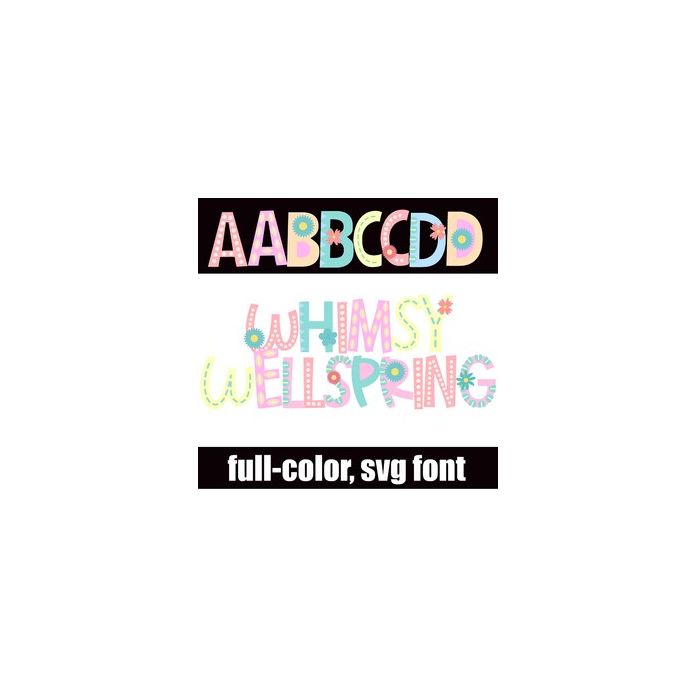
This full-color font features whimsical lettering in pastel colors with cute, pastel flowers. There is an alt case w/ additional colors you can access through your system or Silhouette's glyph map.